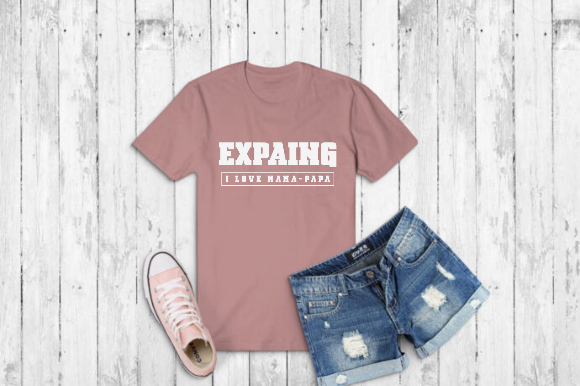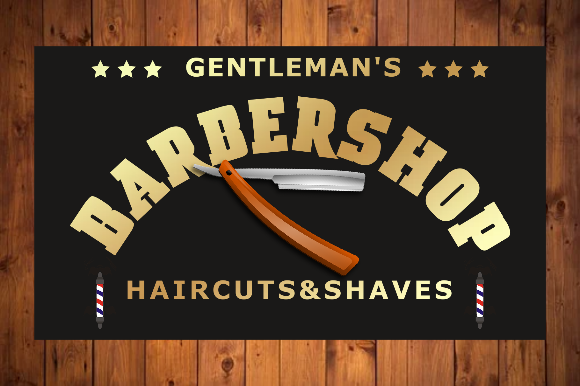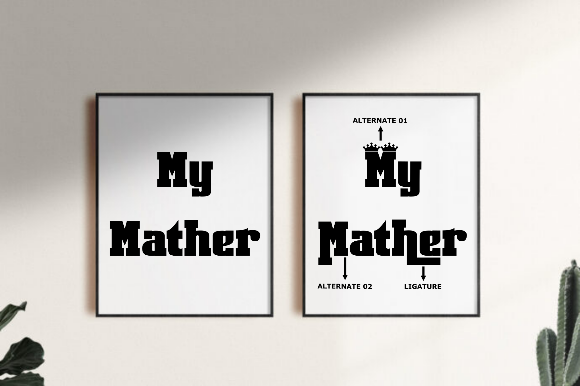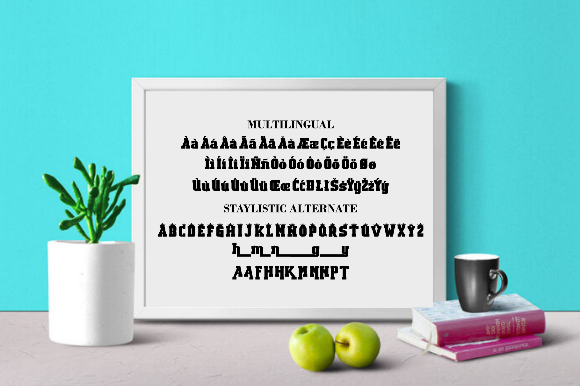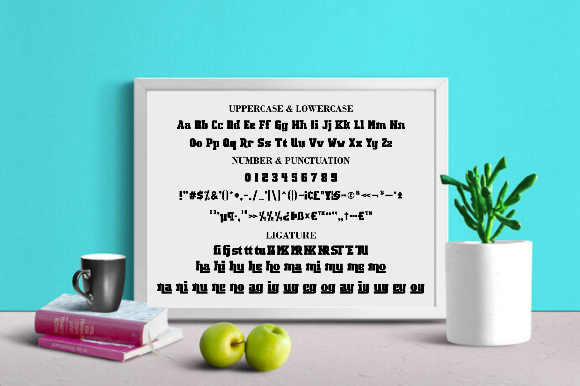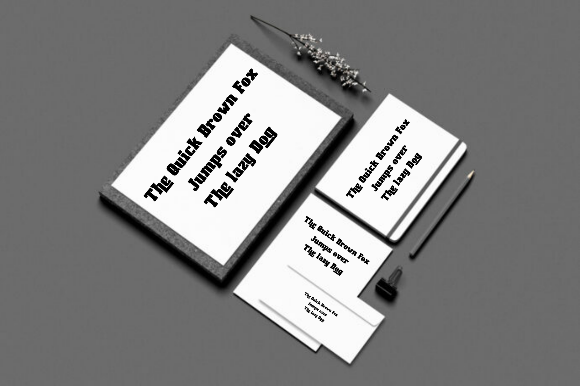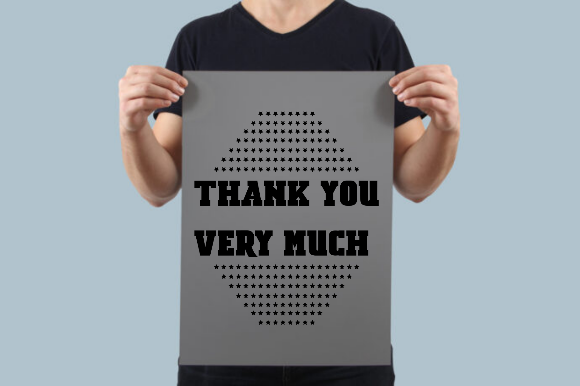
HomePersonal Use FreeExpaing Personal Use Free Expaing FacebookXPinterestWhatsApp 1 of 10 About Expaing Font Expaing is a modern and bold slab serif font. Add this chunky lettered font to your designs and notice how it makes them come alive! DOWNLOAD NOW People also explored Living Together Font Formentera Coastal View | Beer Mockup Wincent Outline Extra Light Font Michelles Script Font Quick Storm Font Capitol Skyline Pro Embrace Family Font Blitwigs Font Tanderun Font 374 0 TagsExpaingExpaing Font Previous articleBoldistNext articleTurpentine LEAVE A REPLY Cancel reply Comment: Please enter your comment! Name:* Please enter your name here Email:* You have entered an incorrect email address! Please enter your email address here Website: Save my name, email, and website in this browser for the next time I comment. Personal Use Free Sushi Stroke Personal Use Free Read more about this font Husky Stash Personal Use Free Read more about this font Dimensional Look71 Personal Use Free Read more about this font Planning Personal Use Free Read more about this font BLOG Modern Sans-Serif Fonts That Brands Love in 2025 In 2025, modern sans-serif fonts remain a top choice for brands looking to project clarity, professionalism, and... How to Install and Use Fonts on Windows, macOS, and Web Projects Using Fonts in Digital Marketing: Tips to Strengthen Your Brand Identity Free vs Paid Fonts: Why Investing in Premium Fonts Is Worth It